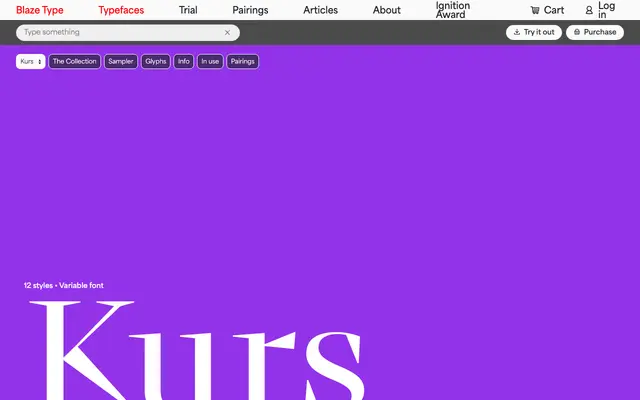
Kurs
A high-contrast display serif by Sandro Bonomo, built around stark thick-thin transitions and spiky serifs drawn from a conceptual rereading of the Renaissance.
Designed by Sandro Bonomo and released in 2024, the family spans six weights from ExtraLight to ExtraBold, each with an italic, and is also available as a variable font. The design draws on the instability of transitional periods, translating that tension into sharp serifs, flat curves and opposing stroke weights. Available in TTF, WOFF, WOFF2 and variable formats, it covers Latin European languages.
Kurs is explicitly described as a display serif, with stark thick-thin contrasts, spiky serifs and expressive terminals that are characteristic of high-contrast display work rather than text use.